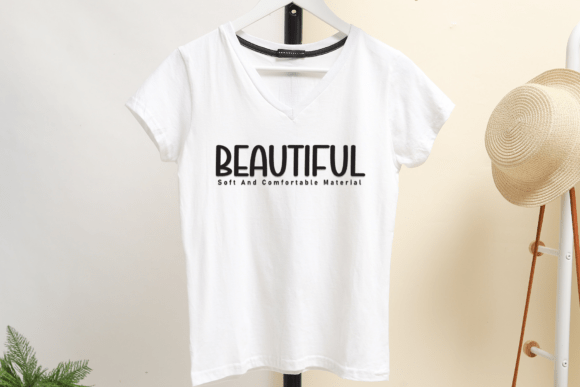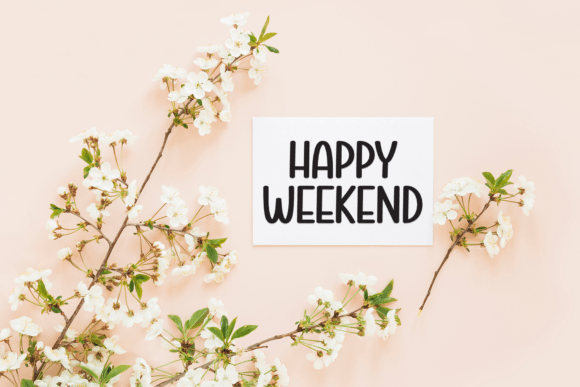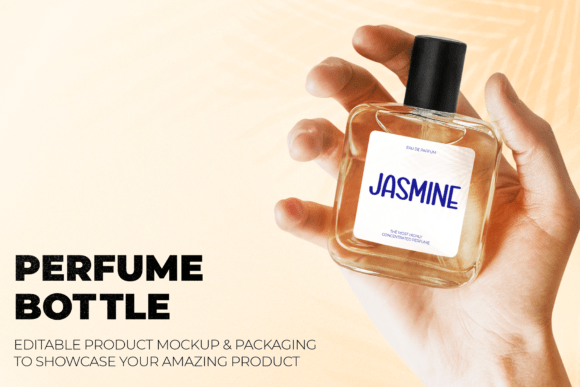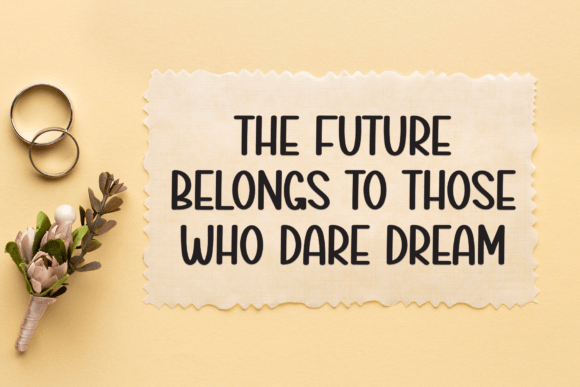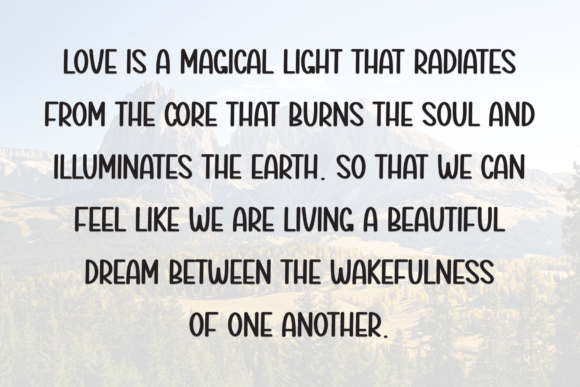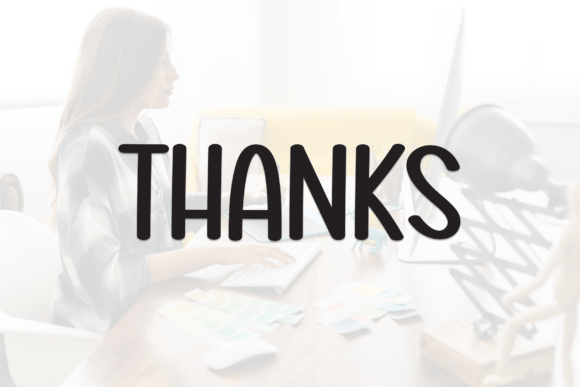
The Designer Font: A Playful Twist on Modern Sans-Serif
I’ll never forget the struggle I faced while working on a branding project for a children’s toy company. My client wanted a font that was both fun and professional, but I was having a hard time finding the perfect fit. That was until I stumbled upon the Designer font. With its clean lines, rounded letterforms, and friendly vibe, it instantly clicked with me. In this article, I’ll share my experience with the Designer font, its features, and how to make the most of it in your designs.
What Makes Designer Font Special?
The Designer font is a modern sans-serif display font that combines geometric construction with soft edges and hand-crafted letterforms. Its friendly, slightly quirky character makes it perfect for casual branding, packaging, children’s content, and social media graphics.
Key Features:
• Geometric sans-serif construction with soft edges
• Balanced proportions for strong readability
• Natural stroke contrast that adds warmth and personality
• All-caps styling with stylized lowercase support (if included)
• ✨ Friendly and approachable tone that adds a personal touch to any project
• ✅ Clean lines and balanced proportions make it highly readable
• 🎉 Perfect for casual branding, packaging, and children’s content
• 🤔 Limited use in formal or corporate settings due to its playful nature
• ⚠️ May not work well in very small font sizes due to its design
4. Explore OpenType features, such as stylistic alternates and glyphs, to add more variety to your text.
One of the standout features of the Designer font is its support for OpenType features. These features allow you to customize your text with stylistic alternates, ligatures, and glyphs. Here’s how to access them:
The Story Behind Designer Font
The Designer font was created with the goal of bringing a friendly, approachable tone to design projects. Inspired by modern sans-serif fonts, the designer aimed to create a font that was both clean and playful. The result is a font that works well in a variety of contexts, from casual branding to children’s content.
Q: What is the Designer font best used for?
A: The Designer font is best used for casual branding, packaging, children’s content, and social media graphics. Its friendly, approachable tone makes it perfect for projects that need a personal touch.
Q: Is the Designer font available in different weights?
A: The Designer font comes in a single weight, but its clean lines and balanced proportions make it versatile enough for a variety of design needs.
A: Yes, the Designer font works well on digital platforms, including social media graphics, websites, and more. Its clean design and balanced proportions ensure it remains readable on screens.